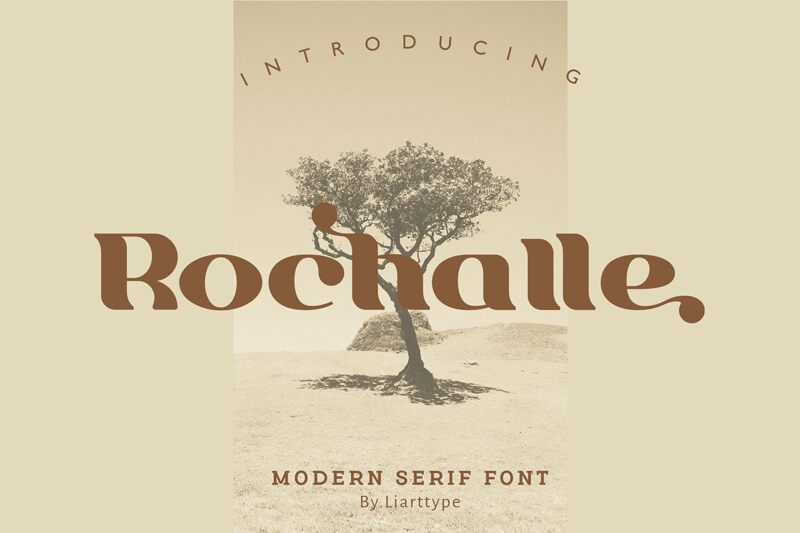
Rochalle is a vintage serif typeface designed by Ali Sifak Muftori with bold, wide strokes. It offers an elegant and timeless feel, perfect for headings and titles that need to make a statement. Its vintage characteristics make it suitable for projects that require a traditional flair such as logo designs, branding and packaging. Rochalle also adds a touch of class to invitations, greeting cards and other print materials.